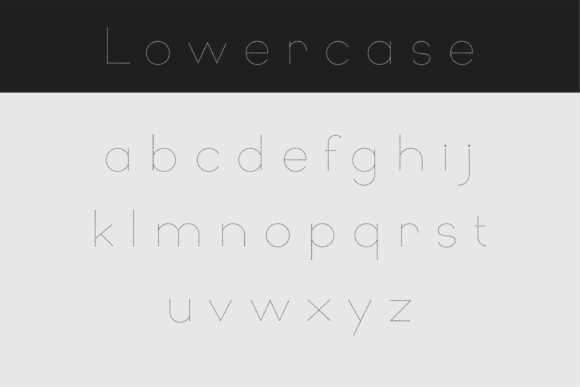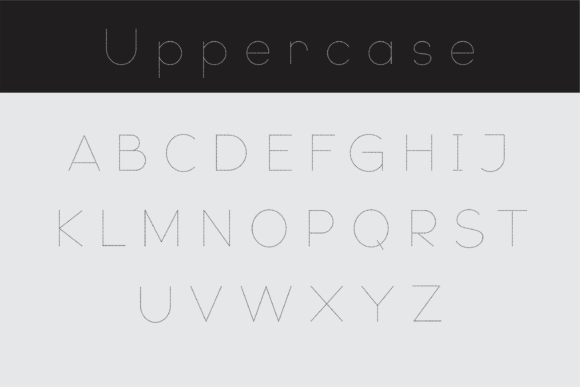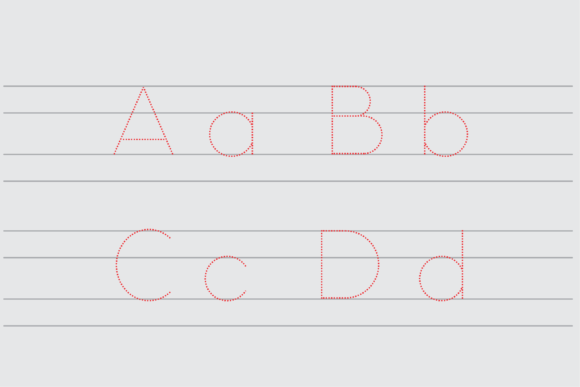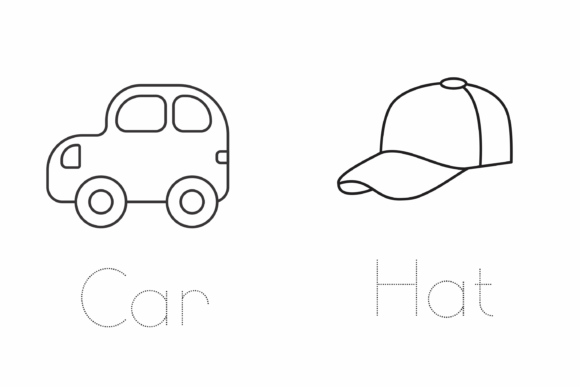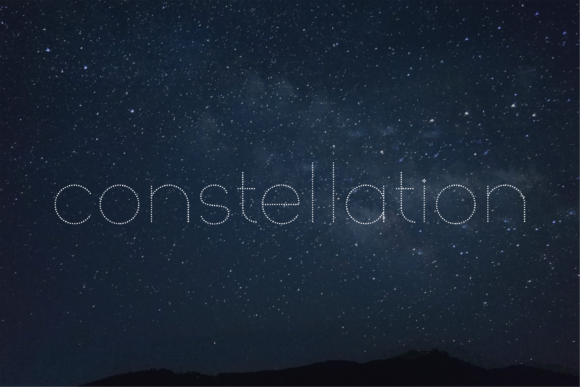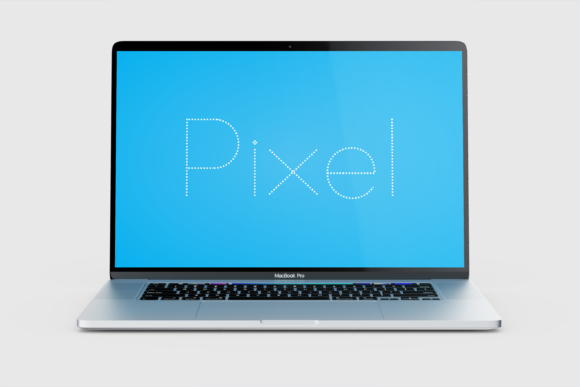
Dotted Font: Elevate Your Designs with a Minimal yet Unique Display Font
Dotted is a minimal yet uniquely designed display font that has been making waves in the design community. Its simplicity and elegance make it an incredibly versatile font that can be matched to a wide range of projects. Whether you’re a designer, crafter, or simply someone who loves to dabble in creative endeavors, Dotted is sure to become a staple in your font collection.
The Power of Minimalism
In an era where bold and elaborate fonts are often used to grab attention, Dotted takes a refreshing approach with its understated yet distinctive design. The font’s minimalist aesthetic is characterized by simple dots that come together to form letters and words. This unique design element gives Dotted a playful and modern feel that’s perfect for designers who want to add a touch of sophistication to their work.
One of the standout features of Dotted is its incredible versatility. The font can be used in a wide range of projects, from branding and advertising to packaging and digital media. Whether you’re working on a logo, headline, or body text, Dotted is sure to make your design stand out. Here are just a few examples of how you can use Dotted to elevate your creative projects:
- Logos and Branding: Use Dotted to create a unique and memorable logo that sets your brand apart.
- Headlines and Titles: Add a touch of elegance to your headlines and titles with Dotted’s sophisticated design.
- Packaging and Labels: Use Dotted to create eye-catching packaging and labels that showcase your product in style.
- Digital Media: Incorporate Dotted into your digital media, such as social media graphics, blog posts, and website headers.
Why Designers and Crafters Love Dotted
So, what makes Dotted so special? Here are just a few reasons why designers and crafters are falling in love with this unique display font:
- Unique Design: Dotted’s distinctive design sets it apart from other fonts on the market.
- Versatility: The font’s versatility makes it suitable for a wide range of projects and applications.
- Elegance: Dotted’s minimalist aesthetic gives it a sophisticated and elegant feel that’s perfect for high-end designs.
- Easy to Read: Despite its minimalist design, Dotted is surprisingly easy to read, making it perfect for body text and headlines.
Tips for Using Dotted Effectively
To get the most out of Dotted, here are a few tips to keep in mind:
- Experiment with Sizes: Dotted looks great in a variety of sizes, so don’t be afraid to experiment to find the perfect fit for your project.
- Play with Colors: Dotted’s simple design makes it easy to use in a range of colors and color combinations.
- Mix and Match: Combine Dotted with other fonts to create a unique and visually appealing design.
- Keep it Simple: Don’t be tempted to over-accessorize your design – Dotted’s simplicity is part of its charm.
Dotted is a game-changing display font that’s perfect for designers and crafters who want to add a touch of elegance and sophistication to their work. Its unique design, versatility, and ease of use make it an excellent addition to any font collection. Whether you’re working on a logo, headline, or body text, Dotted is sure to make your design stand out. So why not give it a try and see the difference it can make?